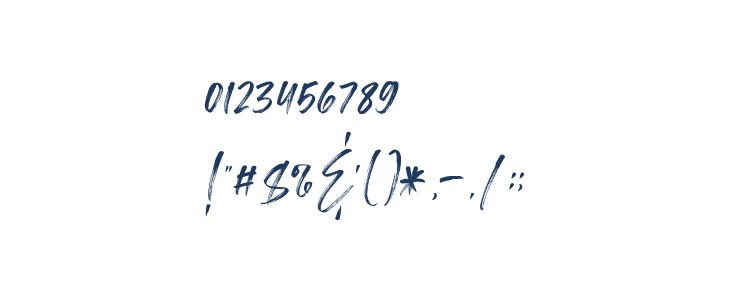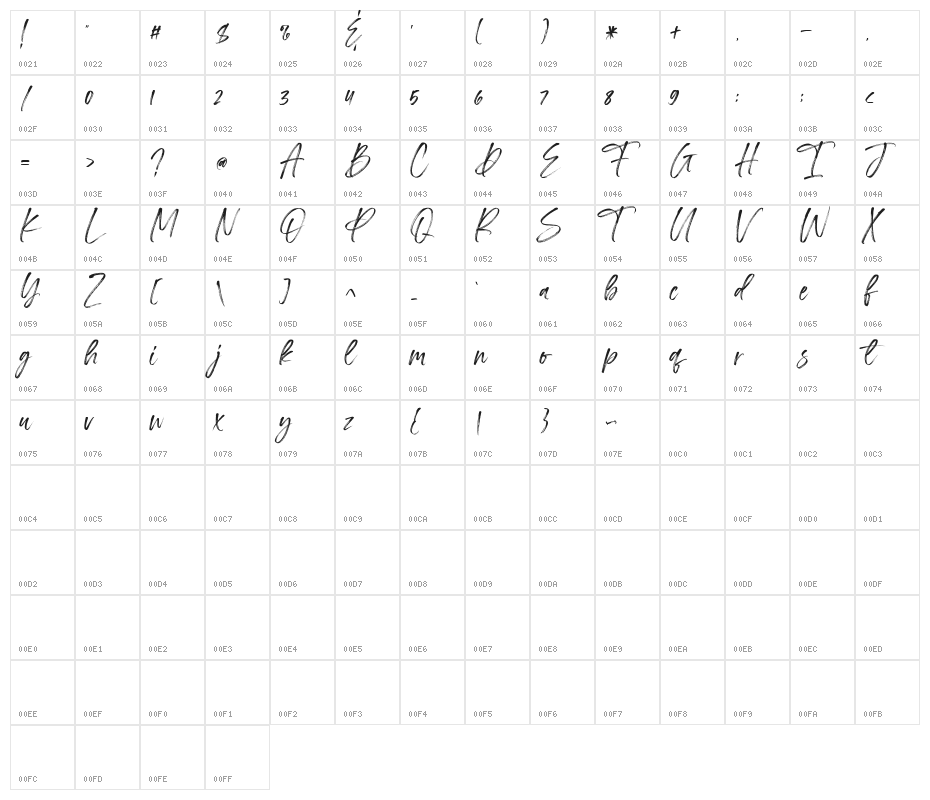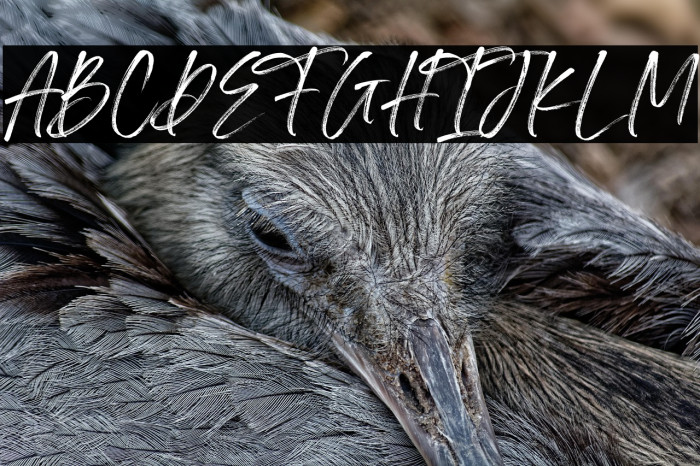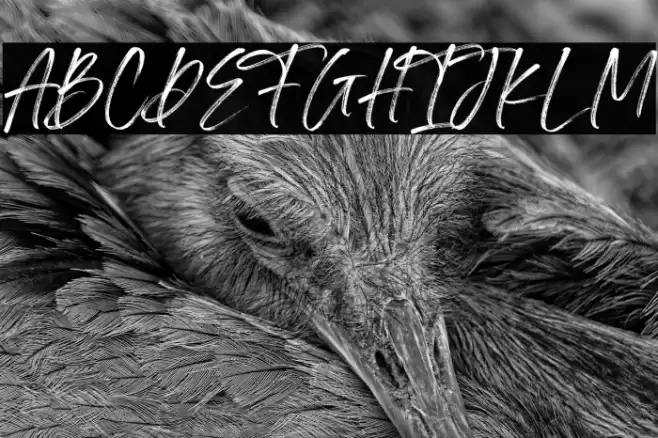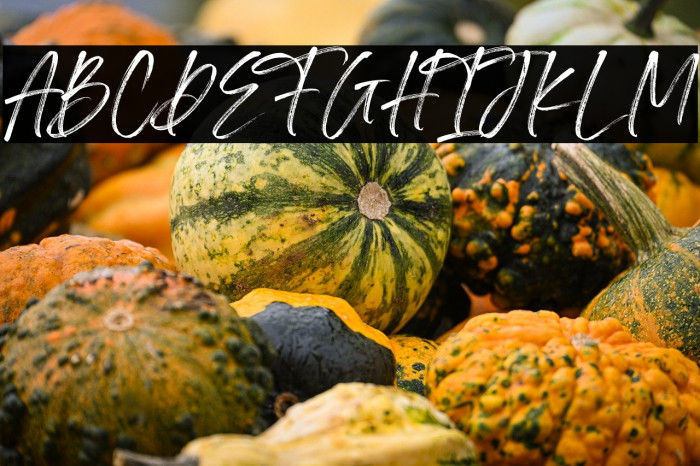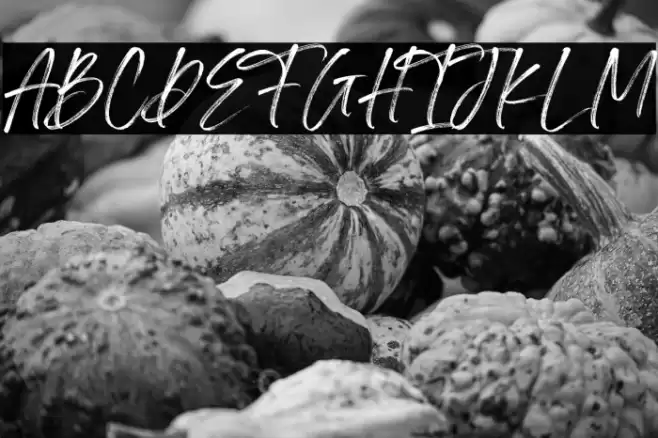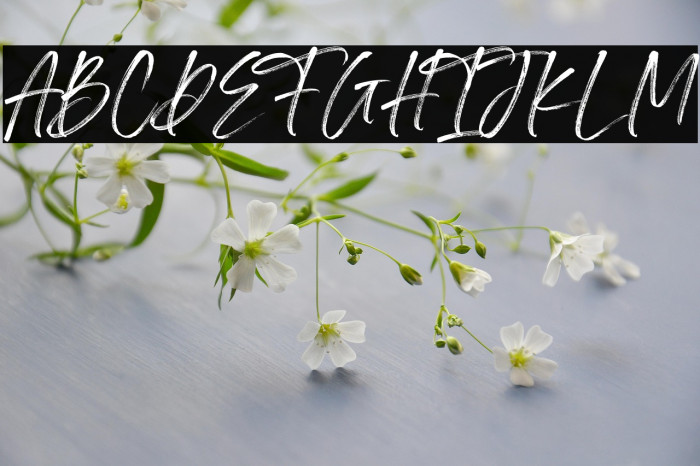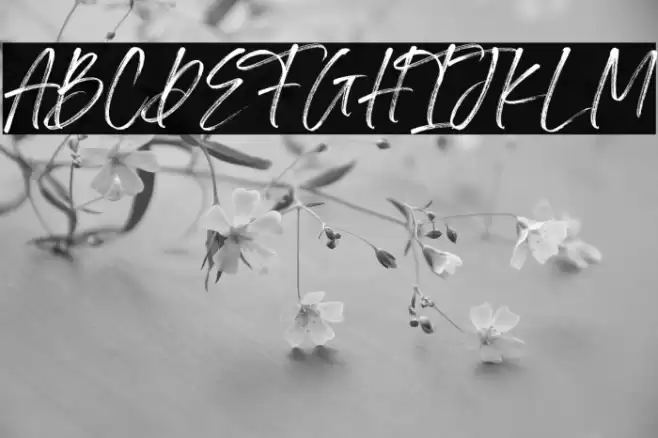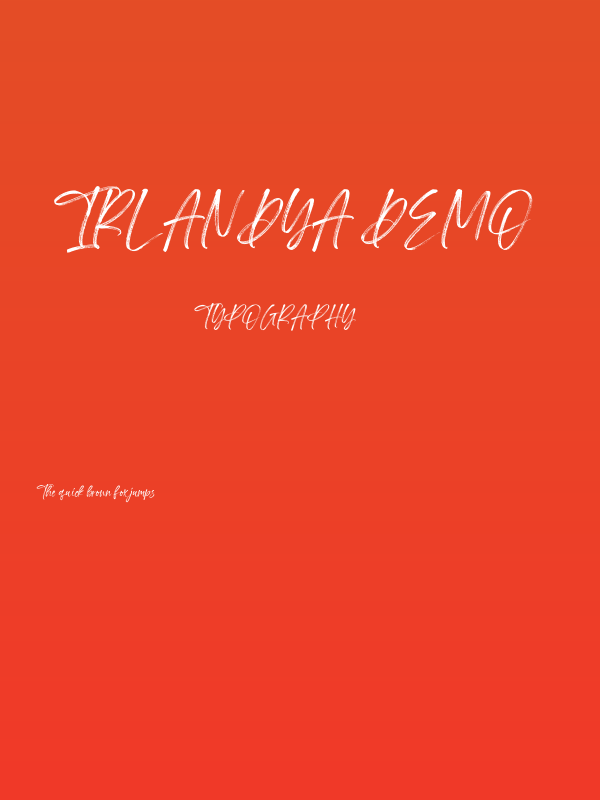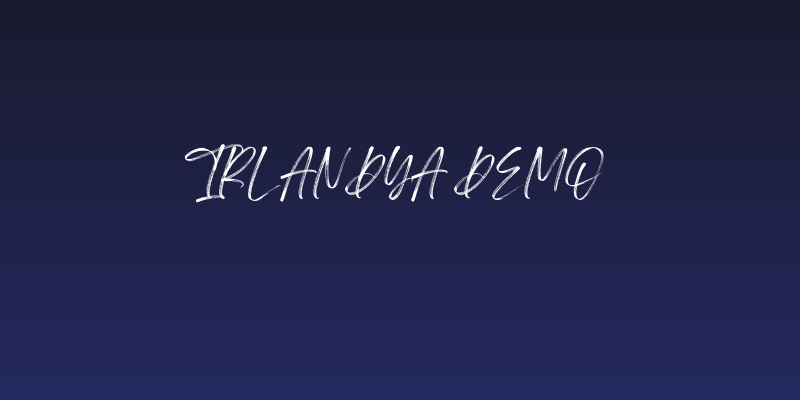
Irlandya Demo Font
Irlandya Demo Description
This font exudes a dynamic and expressive style, characterized by its fluid, handwritten appearance. The strokes are varied in thickness, giving it a lively and energetic feel. The uppercase letters are bold and sweeping, while the lowercase letters maintain a consistent flow, enhancing readability. Numbers and special characters are crafted with the same artistic flair, ensuring a cohesive look across all elements. This font's unique style makes it suitable for projects that require a personal touch or a creative edge.